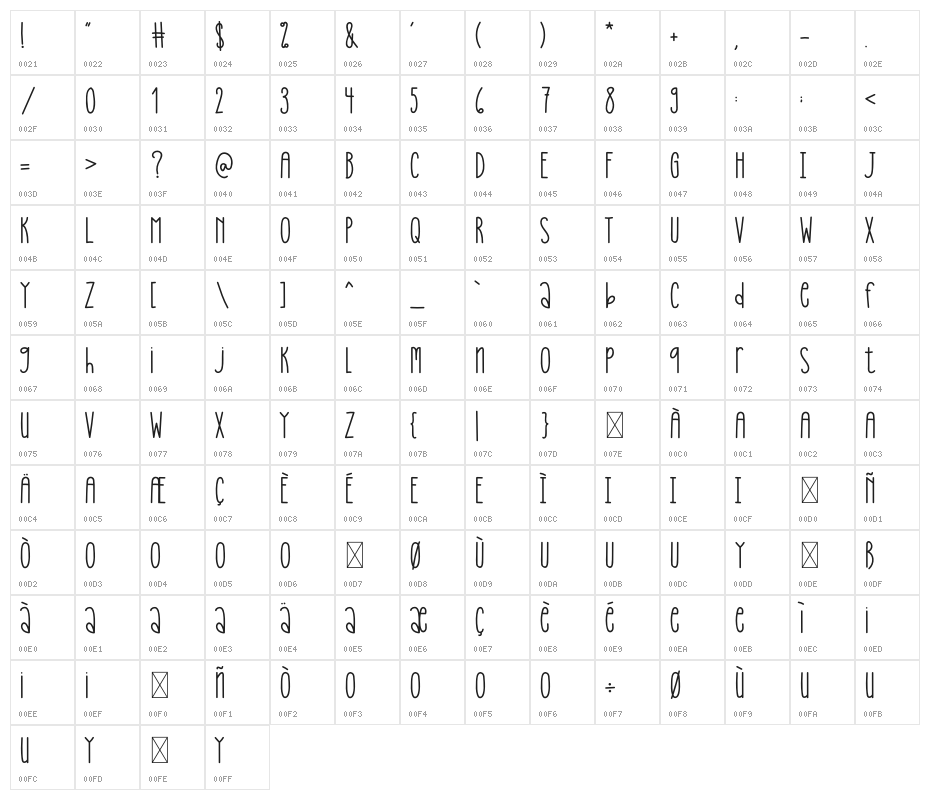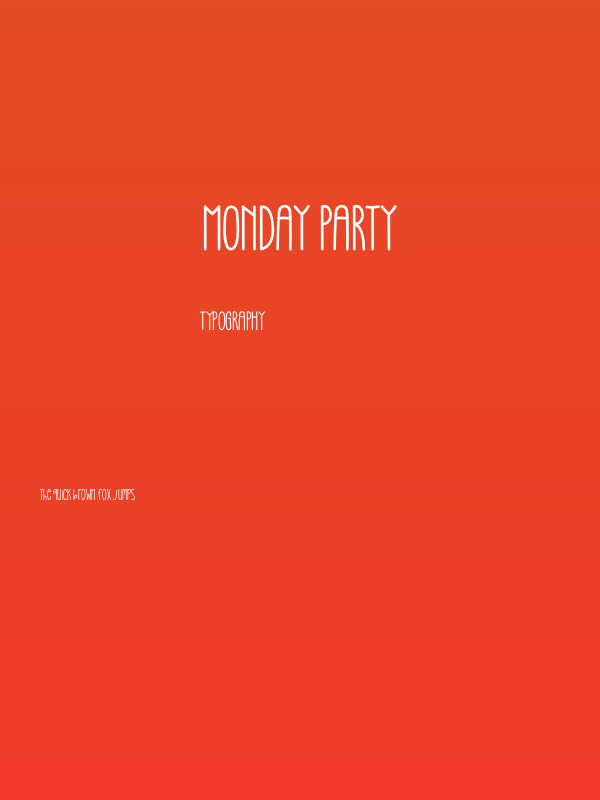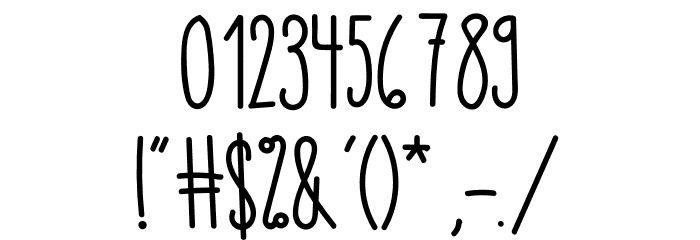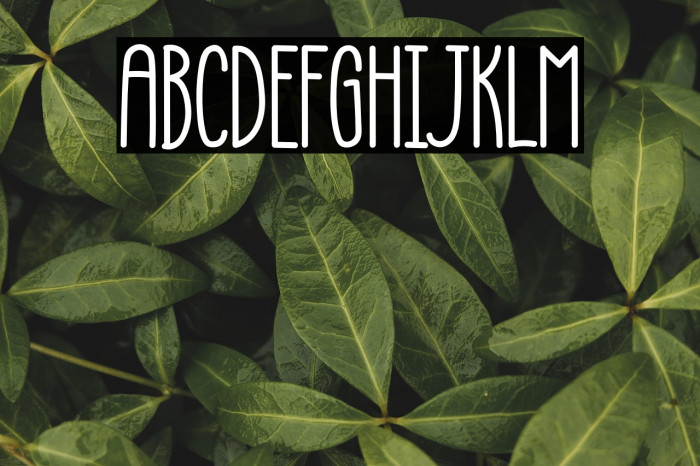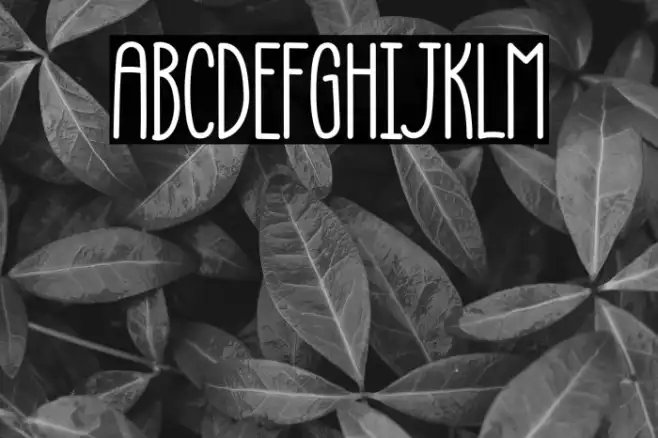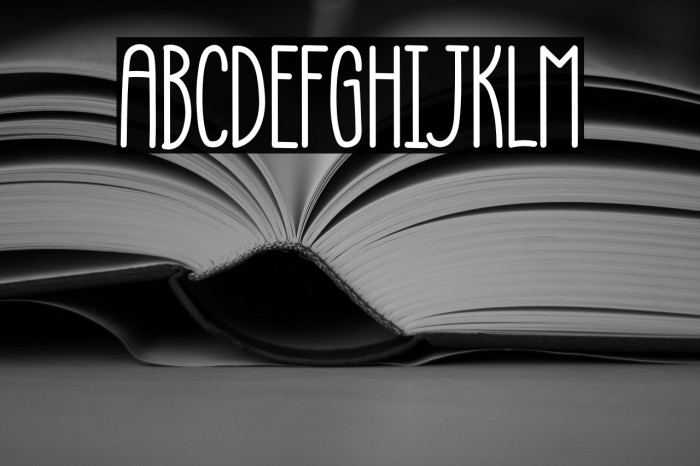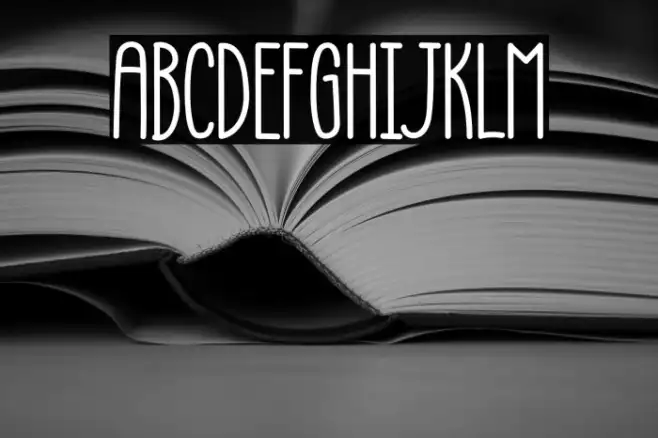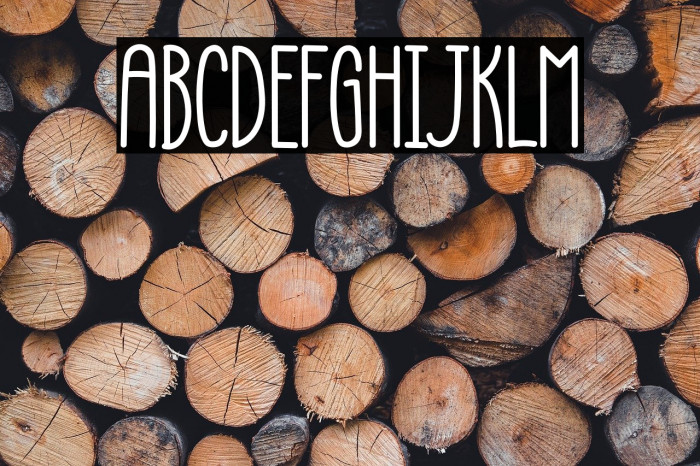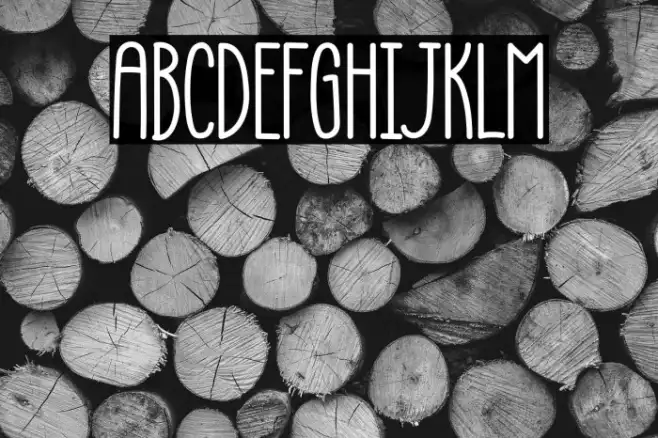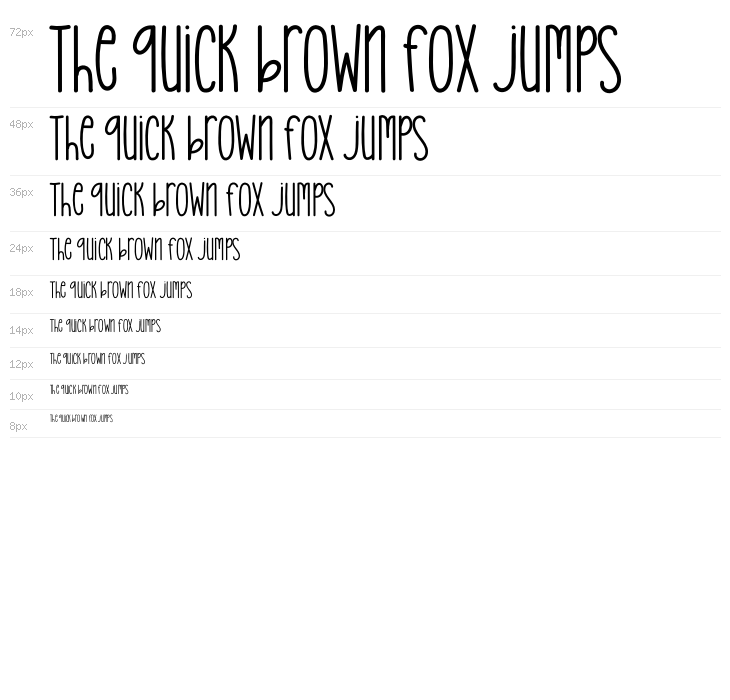
Monday Party Font
Monday Party Description
This playful and whimsical font features tall, narrow letters with a hand-drawn aesthetic. The characters have a consistent stroke width, giving them a clean and modern look. The uppercase and lowercase letters maintain a uniform height, creating a cohesive appearance. The numbers and special characters are designed to match the playful style, making them suitable for creative projects. The font's unique character shapes, such as the rounded edges and slightly irregular lines, add a touch of personality and charm. This font is perfect for projects that require a fun and informal feel, such as party invitations, children's books, or playful branding.
| Proposed Projects | Ideal for party invitations, children's books, playful branding, and creative designs. |